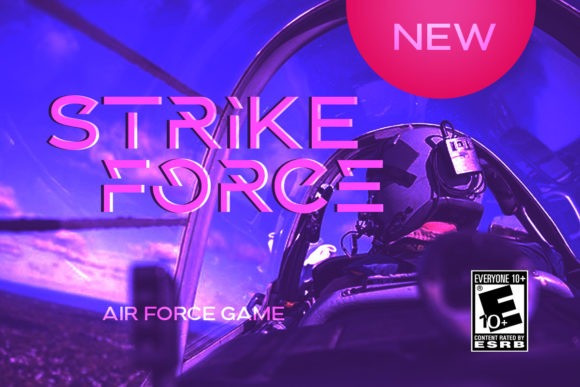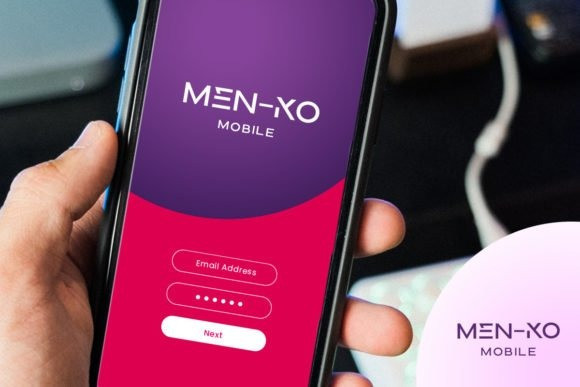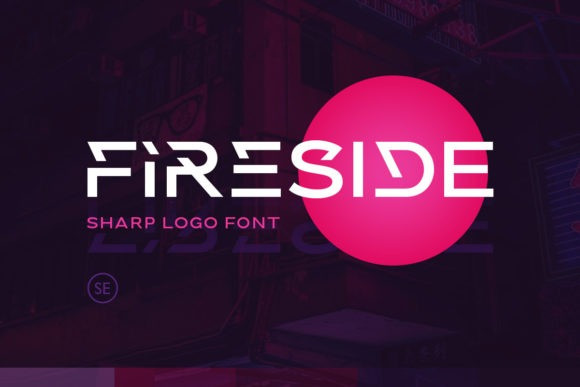
Fireside Display Font
Fireside is a cool, bold and thick lettered display font. This font is ideal for writing web designs, business cards, or pretty much anything else that requires a modern and futuristic touch.